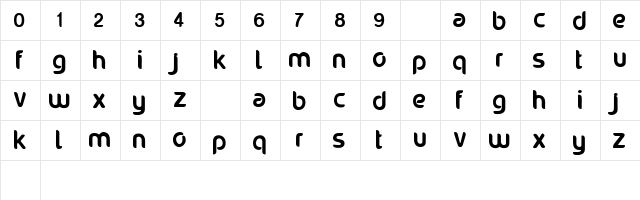
nora viyel Regular
Design Context for nora viyel Typeface
nora viyel offers clean, dependable letterforms without strong stylistic allegiance, making it a practical choice for designers who need flexibility.